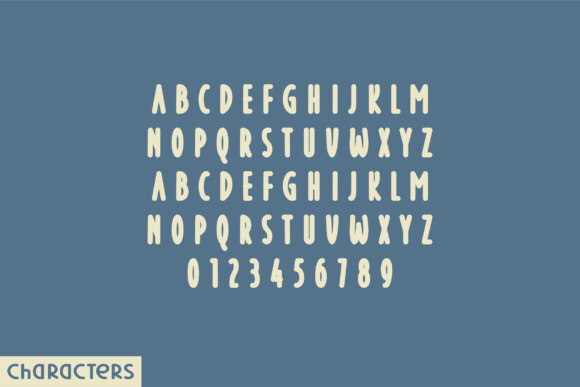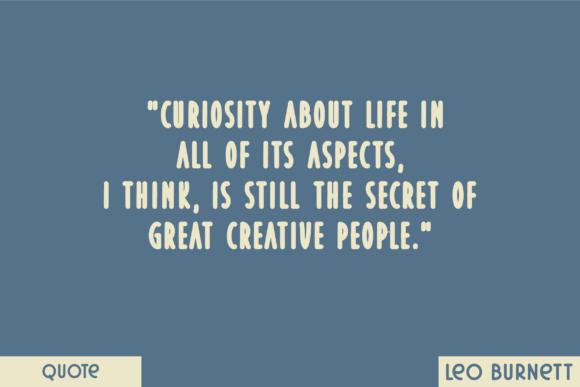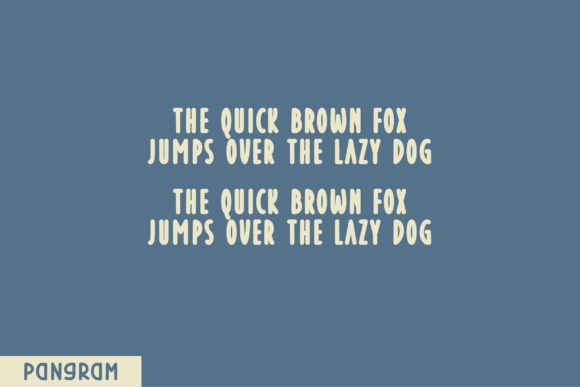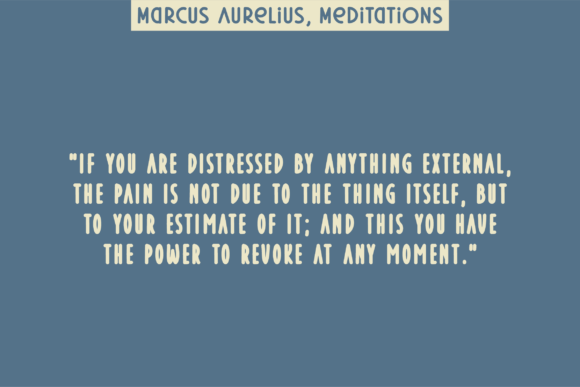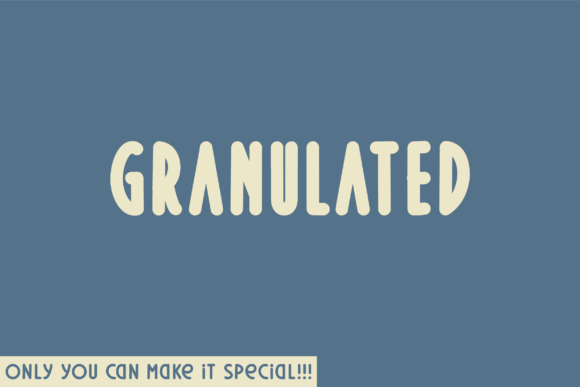
Introducing Granulated Font: A Unique Sans Serif for Creative Designs
In the world of typography, fonts play a crucial role in conveying messages, evoking emotions, and setting the tone for a design. For designers and crafters, finding the perfect font can be a daunting task. However, if you’re looking for a natural, sans serif font that stands out from the crowd, look no further than Granulated Font. This unique font is created without changing a single node in each character’s indentation, making it a fascinating and distinctive addition to any design.
The Story Behind Granulated Font
Granulated Font is a carefully crafted sans serif font that boasts a natural, organic feel. Unlike other fonts that are created by manipulating nodes and curves, Granulated Font is designed with a focus on preserving the original indentation of each character. This approach results in a font that exudes a sense of authenticity and uniqueness, perfect for designers and crafters looking to add a personal touch to their work.
What Makes Granulated Font Special?
So, what sets Granulated Font apart from other fonts? Here are a few key features that make it an exciting addition to any design:
- Natural and Organic: Granulated Font has a natural, effortless feel that makes it perfect for designs that require a personal touch.
- Unique Indentation: The font’s distinctive indentation creates a sense of character and personality, setting it apart from more traditional fonts.
- Sans Serif: Granulated Font is a sans serif font, making it clean, modern, and highly legible.
- Versatile: Whether you’re designing a quote, note, tee, or product, Granulated Font is the perfect choice.
Granulated Font is an excellent choice for designers and crafters looking to add a unique touch to their work. Here are some ways you can use this versatile font:
- Quotes and Notes: Use Granulated Font to add a personal touch to quotes, notes, and other written content.
- T-Shirts and Merchandise: The font’s bold, sans serif design makes it perfect for t-shirts, hoodies, and other merchandise.
- Product Design: Granulated Font is ideal for product design, adding a touch of personality to packaging, labels, and branding materials.
Tips for Using Granulated Font
To get the most out of Granulated Font, here are some tips to keep in mind:
- Experiment with Sizes: Granulated Font looks great in a variety of sizes, from small and delicate to large and bold.
- Play with Colors: The font’s unique indentation creates a sense of texture, making it perfect for use with bold, bright colors.
- Mix and Match: Combine Granulated Font with other fonts to create a unique and eye-catching design.
Granulated Font is a unique and versatile sans serif font that’s perfect for designers and crafters looking to add a personal touch to their work. With its natural, organic feel and distinctive indentation, this font is sure to stand out in any design. Whether you’re creating quotes, notes, tees, or product designs, Granulated Font is an excellent choice. So why not give it a try and see how this amazing font can elevate your designs?